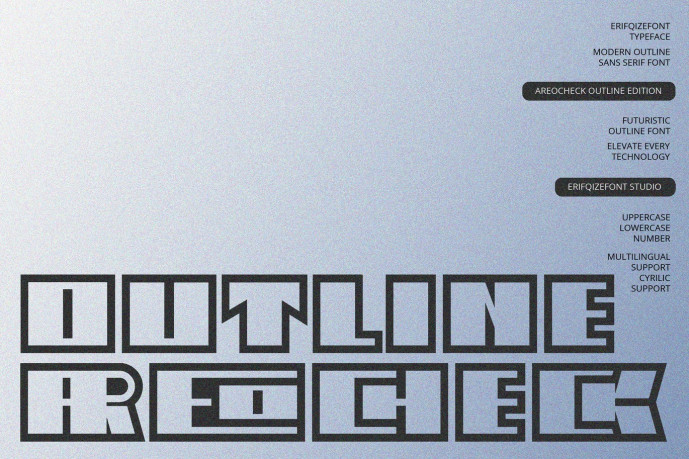
Areocheck Outline Font
Designer: Eka Rifqi Setiawan
Areocheck Outline Font is a modern outline sans serif display typeface inspired by futuristic architecture, digital interfaces, and geometric precision. Built with bold outlined letterforms and clean structural lines, it delivers a powerful technical aesthetic while maintaining excellent readability and visual balance.
Designed for technology-driven and contemporary creative projects, Areocheck Outline is perfect for logos, branding, posters, gaming graphics, user interfaces, packaging, editorial headlines, automotive visuals, and sci-fi themed designs. Its distinctive outline construction creates depth and character, making every composition look modern, bold, and innovative.
The typeface includes uppercase, lowercase, numbers, punctuation, multilingual support, and Cyrillic support, making it suitable for both international branding and professional design applications.